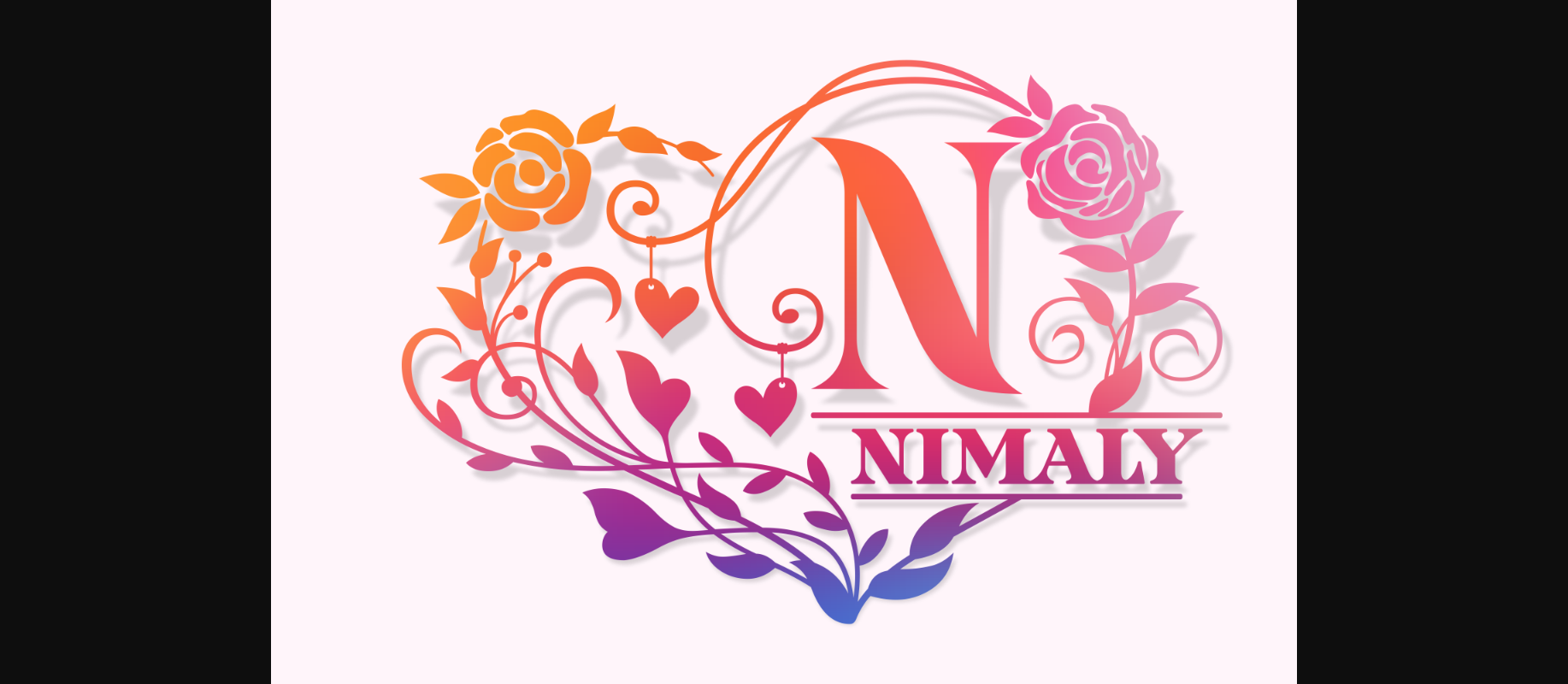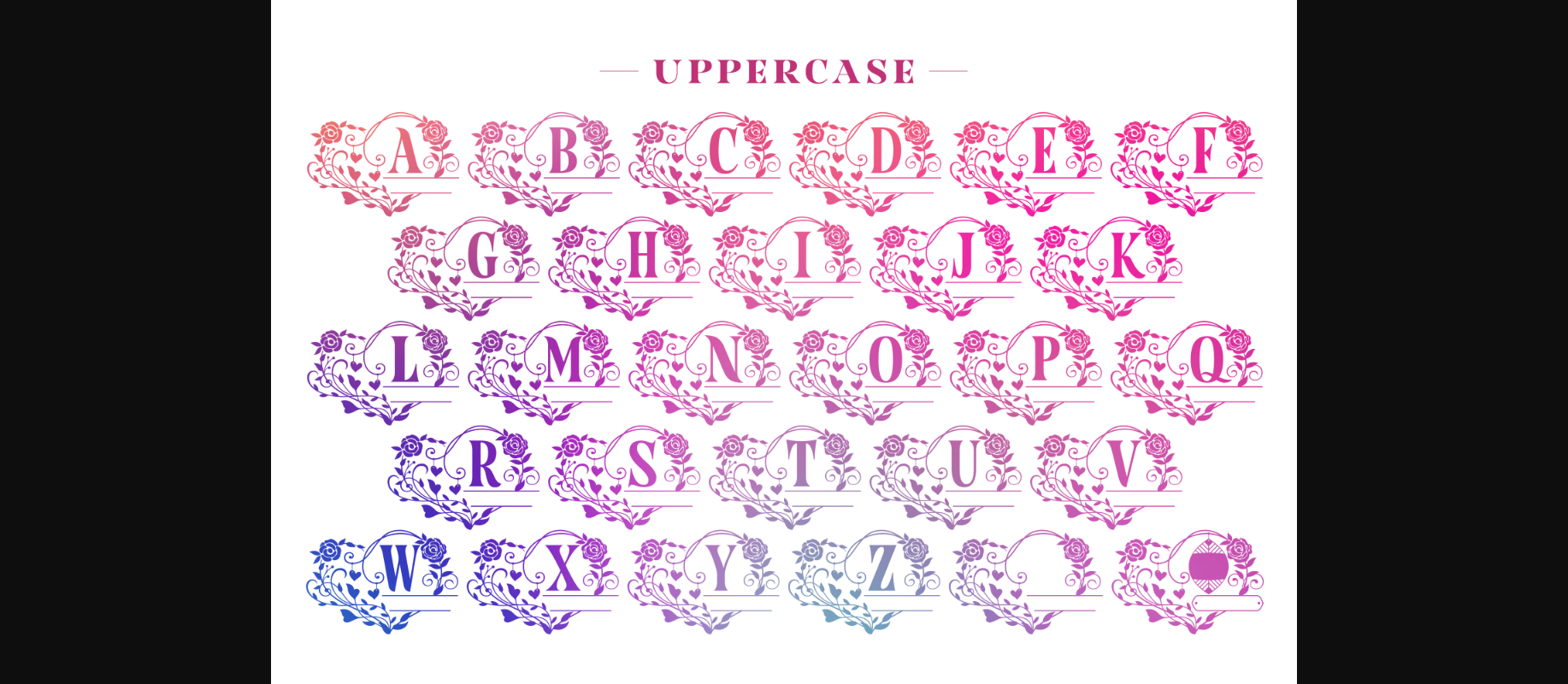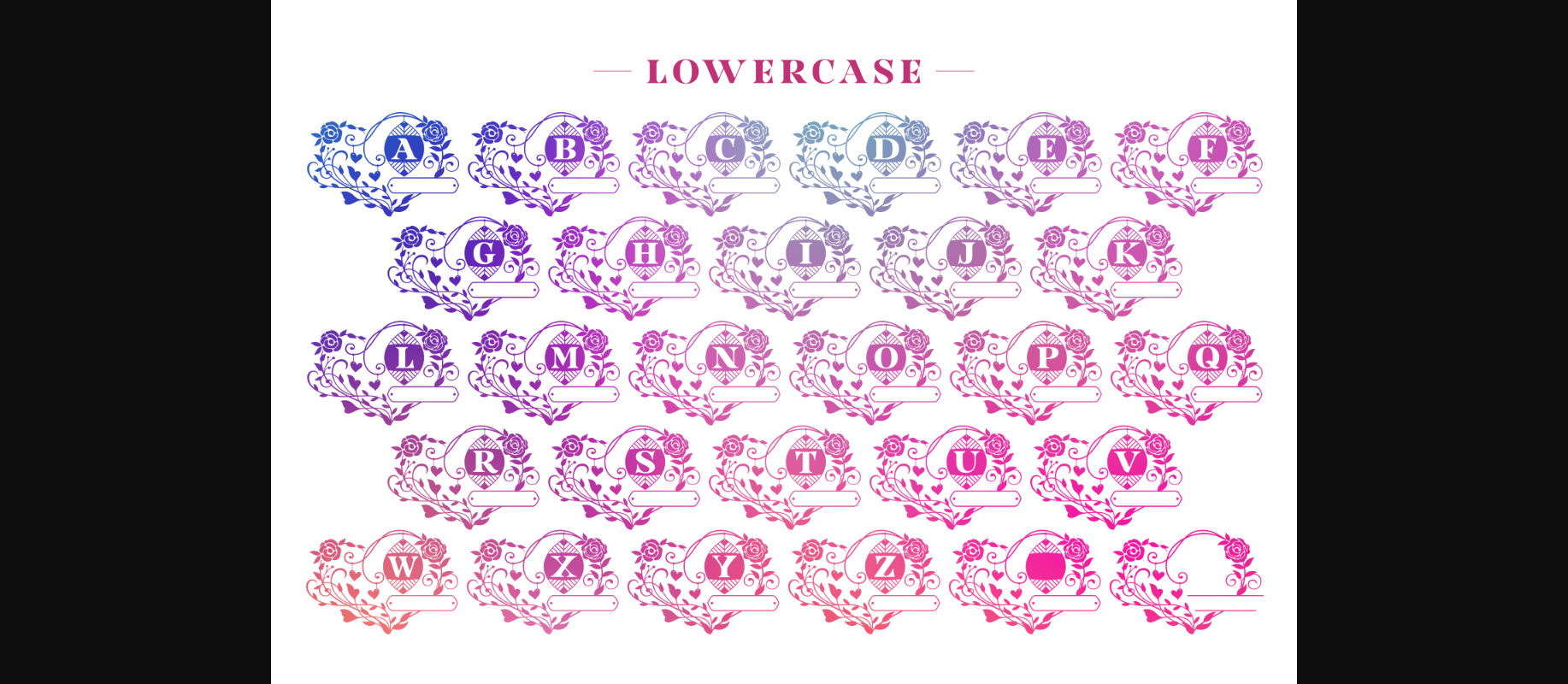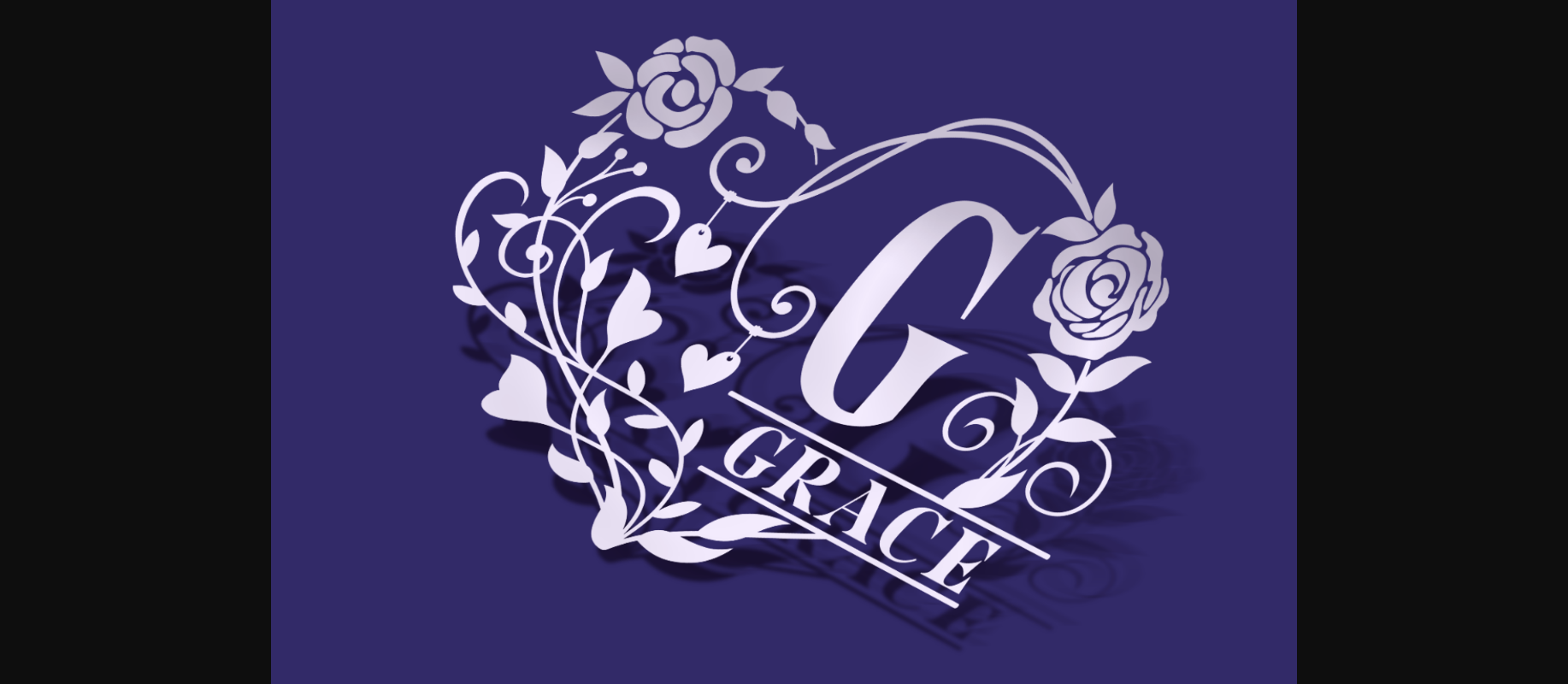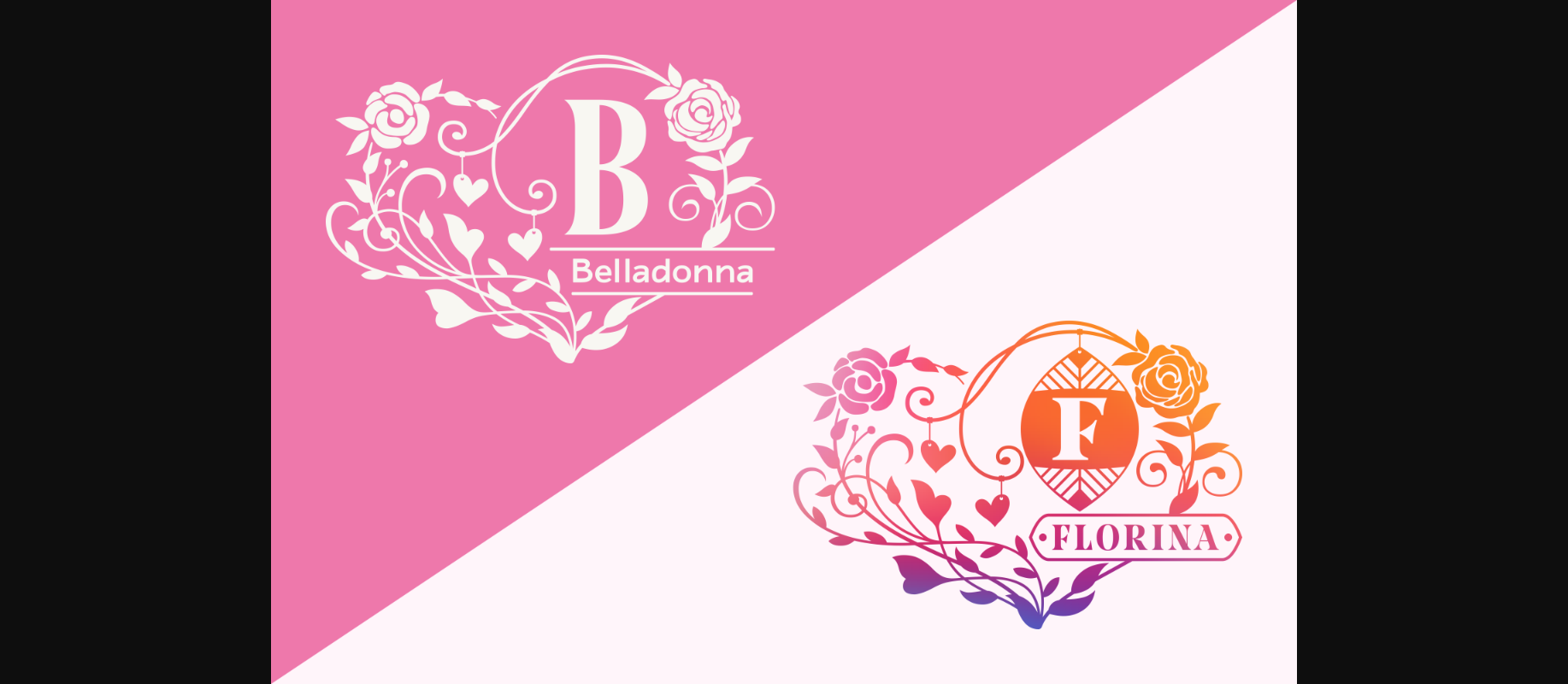
Nimaly Font
About Nimaly Font
Nimaly is a sweet decorative font, featuring lovely flowers as ornaments. Fall in love with its authentic feel and use it to create gorgeous wedding invitations, beautiful stationary art, eye-catching social media posts, and cute greeting cards.